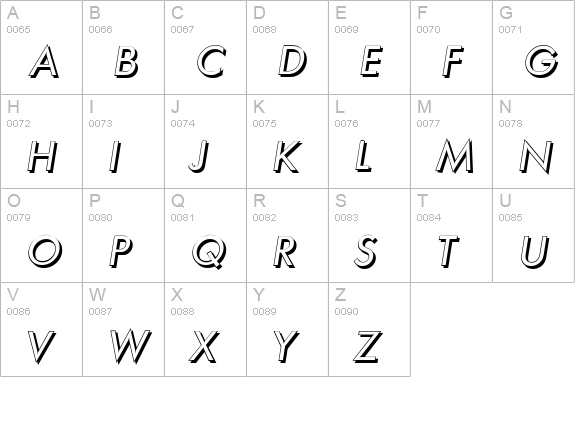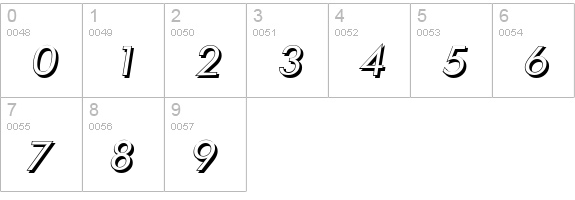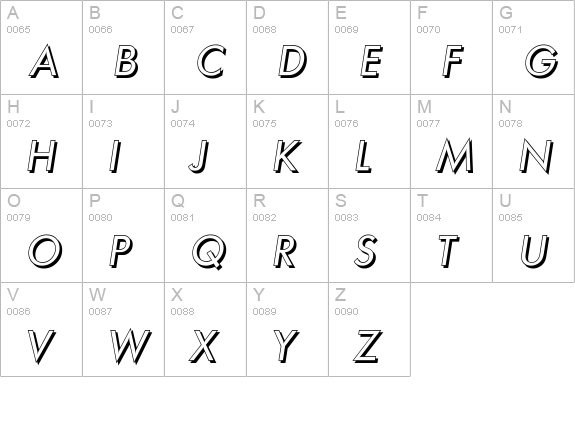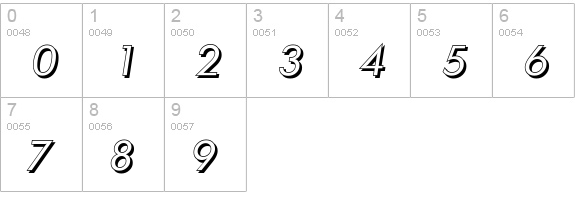
LimerickShadow-Italic Font Details
LimerickShadow-Italic is a distinctive, italic variant in the LimerickShadow typeface family \xE2\x80\x94 well suited to design and typography projects.
LimerickShadow-Italic font is a unique and elegant typeface that exudes a touch of sophistication and charm. Its slanted design adds a subtle sense of drama to any text, making it perfect for headlines, invitations, and branding projects. The delicate shadows give the letters a three-dimensional effect, adding depth and interest to your designs. What's even better is that LimerickShadow-Italic font is completely free for personal and commercial use. You can download this exquisite font at FontsMarket.com without any cost, making it a fantastic addition to your font collection. Don't miss out on this opportunity to elevate your designs with the beauty and versatility of LimerickShadow-Italic font.